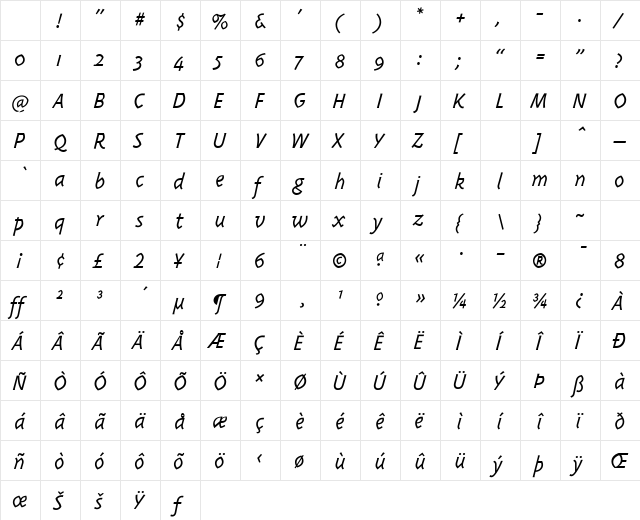
Triplex-Light LightItalic
Style: LightItalic
Copyright: Copyright (C) 1991 Emigre Graphics, Designed by John Downer
Design Context for Triplex-Light
Triplex-Light is a composed and adaptable typeface that performs quietly and consistently across a wide range of design contexts. The slanted form adds forward momentum and visual energy. Its slender proportions lend an understated elegance to any composition.